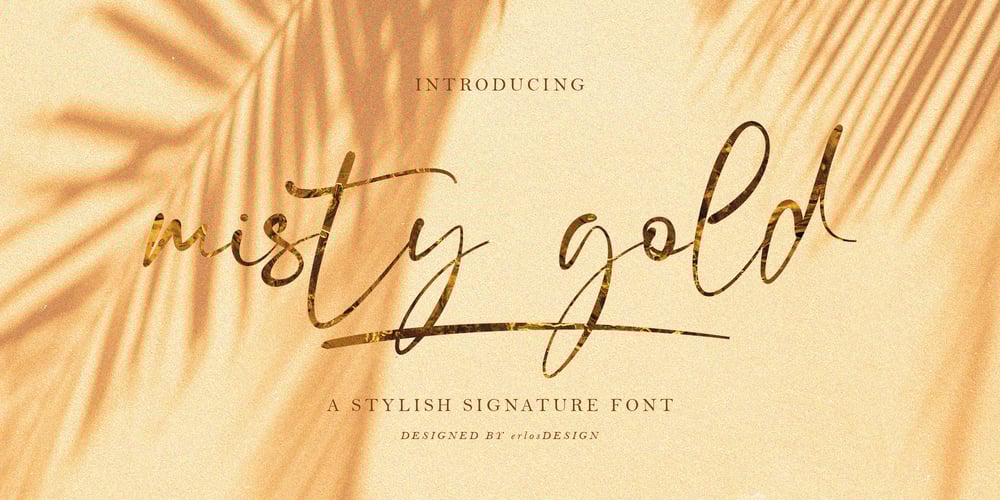
Misty Gold Font Family was designed by Erlangga Suherman and published by ErlosDesign. Misty Gold contains 1 styles and family package options. Misty Gold is a delicate, elegant and flowing signature font. It has beautiful and well balanced characters and as a result, it matches a wide pool of designs.Misty Gold features a varying baseline, smooth lines, gorgeous glyphs and stunning alternates. Add it to your most creative ideas and notice how it makes them come alive!